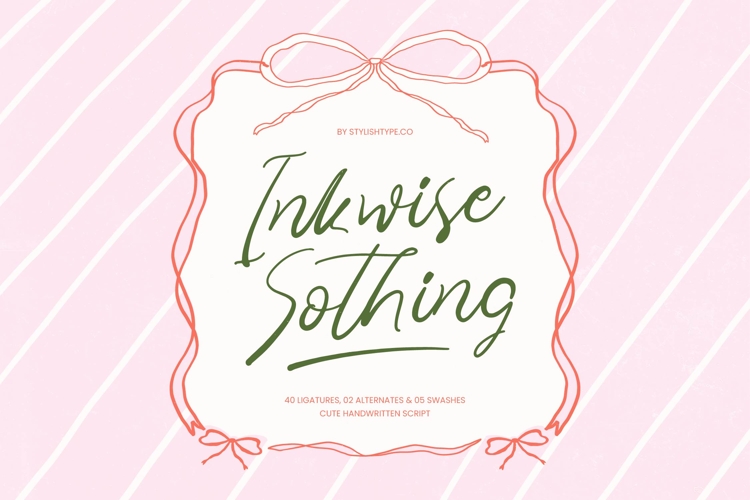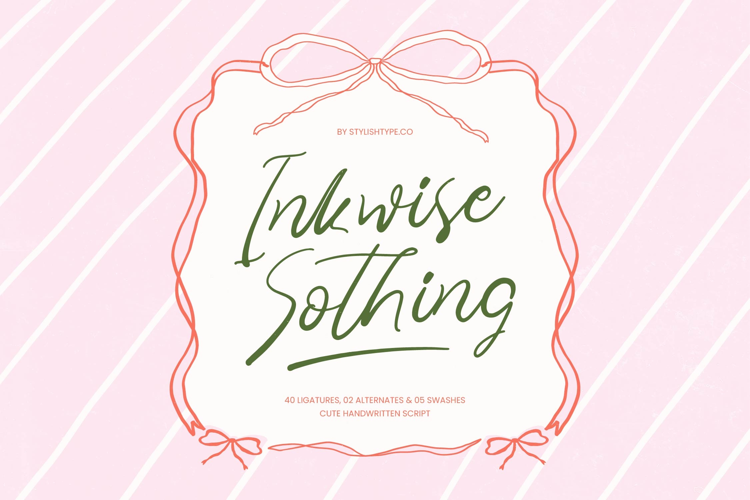
Inkwise Sothing - Cute Handwritten Script
Elevate your creative vision with the charming and organic flow of Inkwise Sothing - Cute Handwritten Script. This premium script typeface captures the essence of hand-lettered artistry, offering a playful yet sophisticated aesthetic that instantly adds a touch to any design. Its fluid strokes and natural rhythm make it a standout choice for designers seeking to evoke warmth and authenticity in their visual storytelling.
Unlock unparalleled creative flexibility through a rich suite of OpenType features embedded within Inkwise Sothing - Cute Handwritten Script. Featuring 40 unique ligatures and decorative swashes, this font allows for custom-feeling layouts that mimic authentic calligraphy. The delicate weight and elegant proportions ensure that every word remains legible while maintaining a bespoke, artisanal quality that distinguishes your brand from the competition.